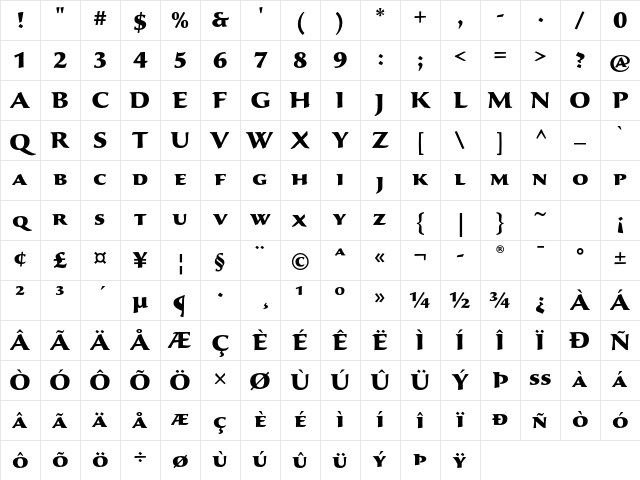
Sava Pro Black
Designer: Jovica Veljovic
Design Context for Sava Pro
Sava Pro is a composed and adaptable typeface that performs quietly and consistently across a wide range of design contexts.